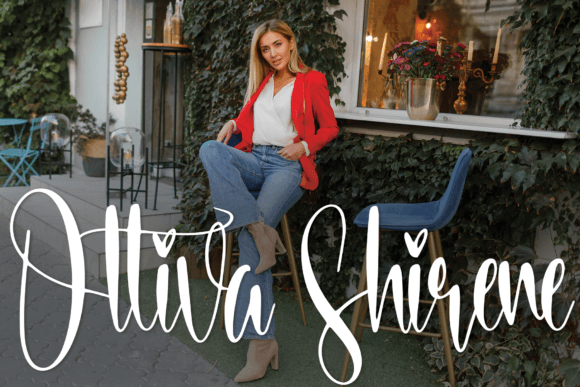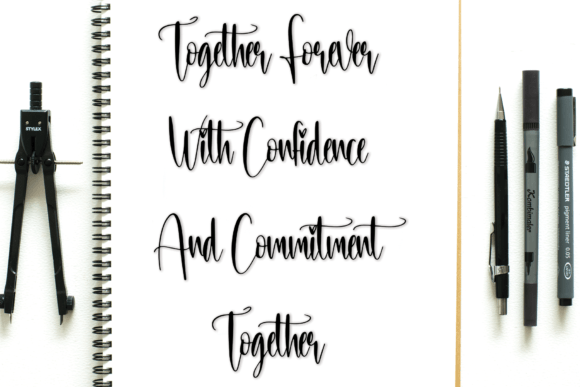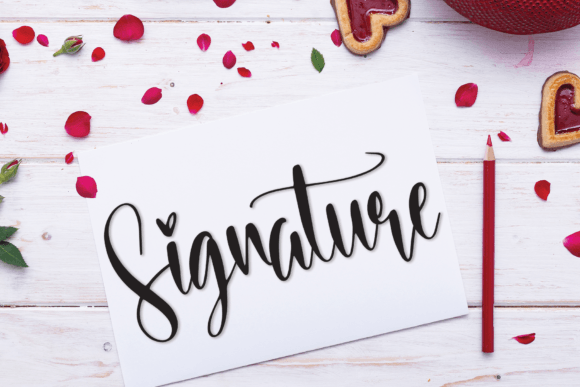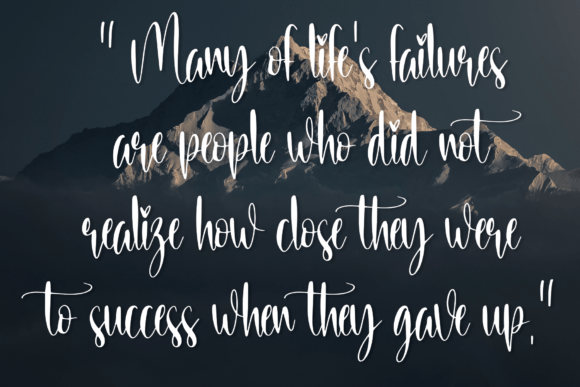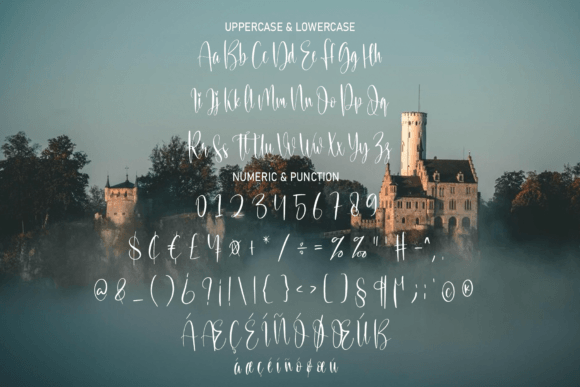
Introducing Castle Font: The Epitome of Elegance and Sophistication
Are you on the hunt for a font that exudes luxury, sophistication, and a touch of whimsy? Look no further than Castle Font, a breathtakingly beautiful handwritten typeface that is sure to capture your heart. With its perfect blend of classic calligraphic influences and modern flair, Castle Font is the ultimate addition to any design project.
The Story Behind Castle Font
Castle Font is more than just a pretty face; it’s a masterfully crafted typeface designed to evoke a sense of wonder and enchantment. Its creator, with a keen eye for detail and a deep understanding of typographic design, has poured their heart and soul into crafting a font that is both elegant and approachable. The result is a typeface that feels at home in a variety of contexts, from high-end branding and advertising to packaging, stationery, and beyond.
What Makes Castle Font So Special?
So, what sets Castle Font apart from other fonts in its class? For starters, its exquisite handwritten aesthetic is characterized by flowing lines, delicate swashes, and a sense of movement and energy. This font is perfect for designers who want to add a touch of personality and whimsy to their work, without sacrificing legibility or sophistication.
Key Features of Castle Font
- Handwritten aesthetic: Castle Font boasts a beautiful, handwritten look that’s perfect for adding a personal touch to your designs.
- Classy calligraphic influences: The font’s classic calligraphic roots give it an air of sophistication and elegance.
- Contemporary feel: Despite its classic influences, Castle Font feels fresh and modern, making it perfect for designers who want to stay on-trend.
- High legibility: The font’s clear and flowing lines ensure that it’s easy to read, even at smaller sizes.
Why Designers and Crafters Love Castle Font
Castle Font has quickly become a favorite among designers and crafters, and it’s easy to see why. Whether you’re working on a branding project, creating social media graphics, or designing packaging, this font is sure to elevate your work to new heights. Its versatility and wide range of applications make it an excellent addition to any design toolkit.
Applications for Castle Font
So, what can you use Castle Font for? The possibilities are endless! Here are a few ideas to get you started:
- Branding and logos: Use Castle Font to create a luxurious and sophisticated brand identity that will leave a lasting impression.
- Stationery and invitations: Add a touch of elegance to your stationery, invitations, and greeting cards with this beautiful font.
- Packaging design: Make your product stand out on store shelves with Castle Font’s eye-catching and memorable aesthetic.
- Social media graphics: Use Castle Font to create stunning social media graphics that will help you connect with your audience.
In conclusion, Castle Font is a true gem in the world of typography. Its exquisite handwritten aesthetic, classy calligraphic influences, and contemporary feel make it the perfect addition to any design project. Whether you’re a designer, crafter, or simply someone who appreciates beautiful typography, Castle Font is sure to capture your heart. So why wait? Fall in love with Castle Font today and bring your projects to the highest levels!